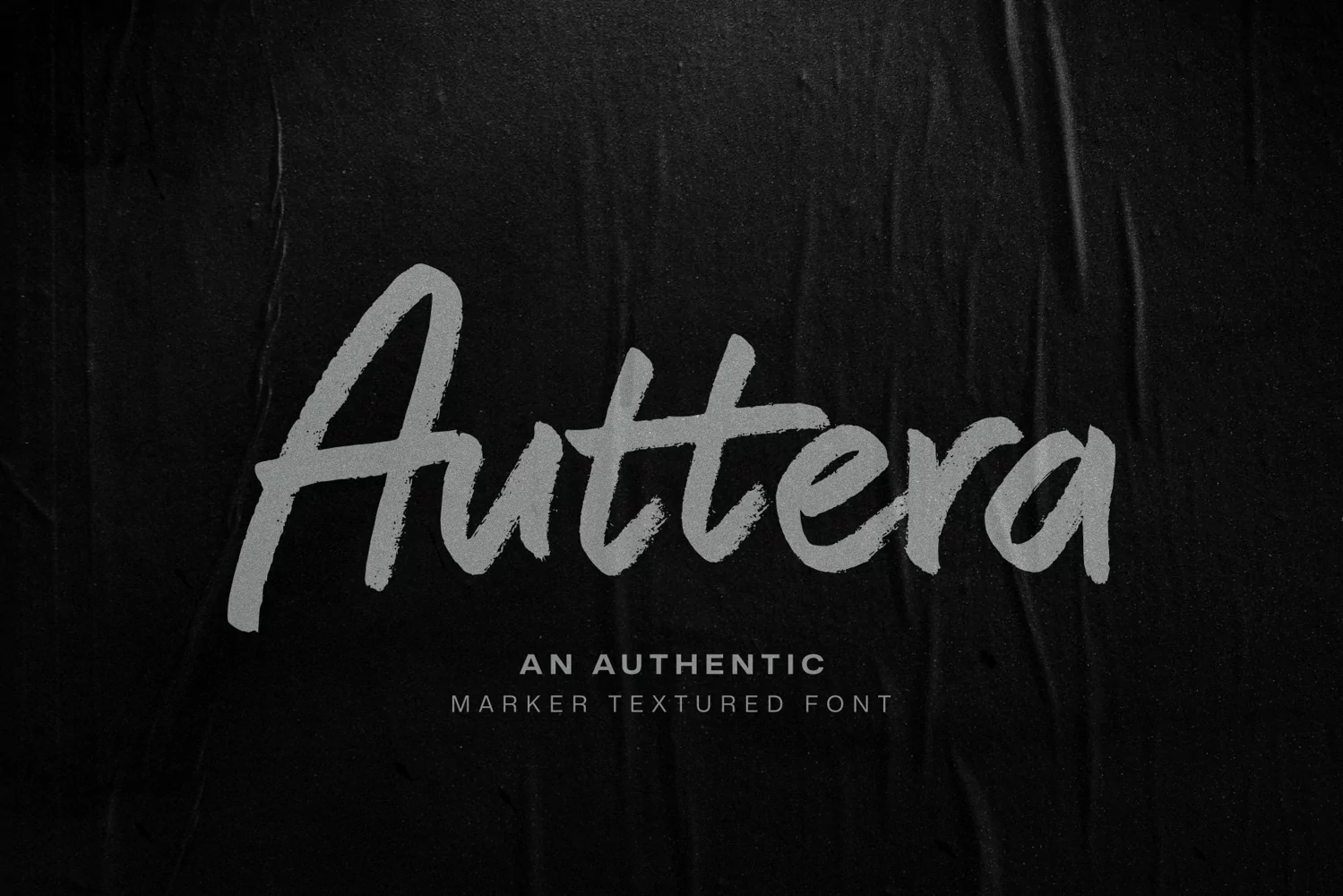
Auttera Marker/Brush Font
Introducing: Auttera! Marker Font
Auttera presents an exceptional and genuine typeface meticulously crafted from genuine hand-drawn sketches using a marker pen.
Its inherent organic and natural design instills a personalized essence into every project, setting it apart from the ordinary.
Uncover the mesmerizing allure and distinctiveness of Auttera, and enhance your designs with its unparalleled and exclusive style.
Auttera comes with uppercase, lowercase standard characters, punctuation and multilingual language support.
• OpenType Features; several alternate character and ligatures